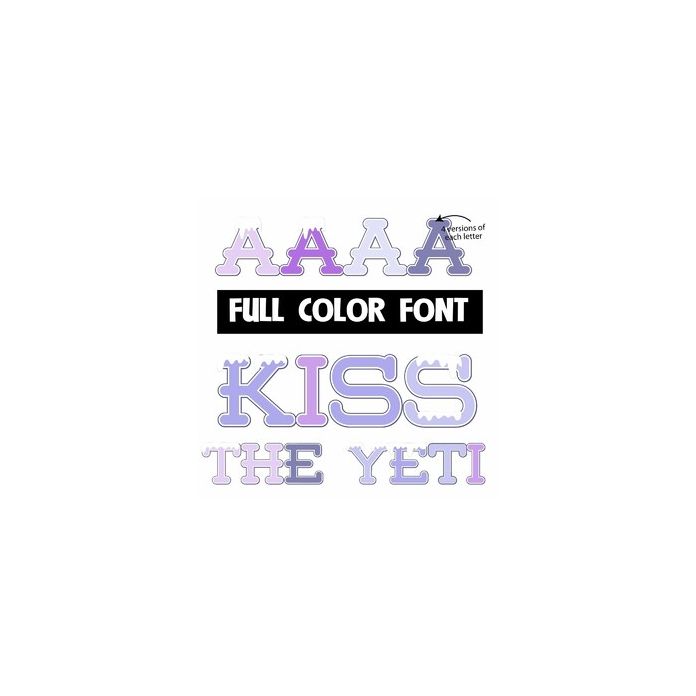
This full-color font features a cold-colored palette and snow on the uppercase. You can access another version of the letters by using the alt characters in Silhouette's glyph map.